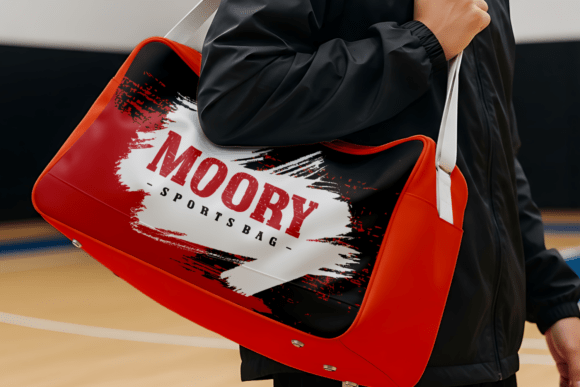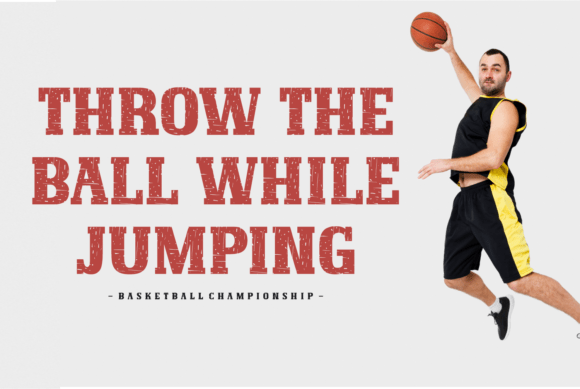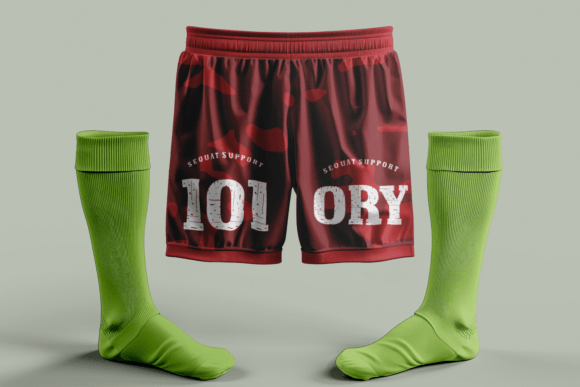
Introduction to Real Battle Font
Immerse your designs in the rich aesthetics of yesteryear with Real Battle slab serif font.
This vintage-infused typeface, with its thick, bold strokes, exudes an old-style charm whose roots dig deep into the realm of grunge art Fitting perfectly into accent designs, the Real Battle font carries an unmistakable authenticity that brings your ideas to life.